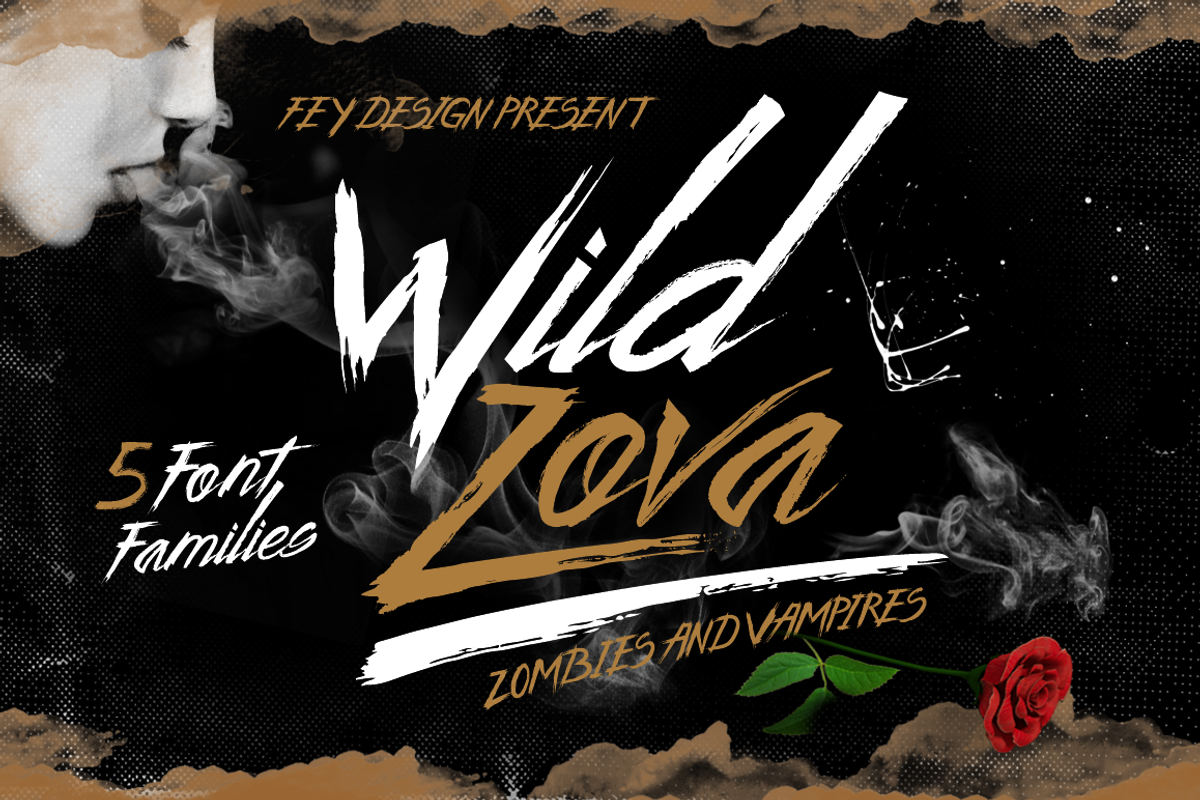
Wild Zova Family Font Free Download is a bold and dynamic font family designed for high-impact designs. Featuring multiple weights and styles, this font family is perfect for a wide range of creative projects including logos, branding, headlines, posters, and social media graphics. Its unique letterforms blend modern aesthetics with a touch of ruggedness, making it perfect for adventurous, edgy designs.
Wild Zova Family Font Free Download is ideal for projects that need to capture attention with its strong, expressive style. Whether you're designing for an outdoor brand, a music festival, or a lifestyle company, this font family brings versatility and boldness to your typography.